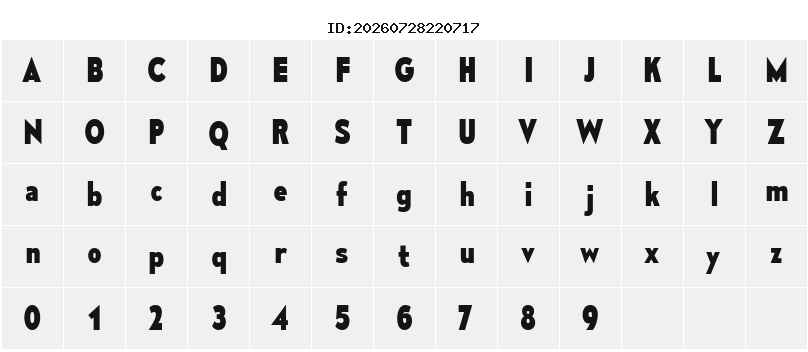
• Font Name: Mesmerize Sc Eb
• Designer: Ray Larabie
• Manufacturer: Ray Larabie
About Mesmerize Sc Eb.ttf
Mesmerize Sc Eb.ttf is a modern, elegant sans-serif font designed for ultimate readability and visual harmony. Perfect for branding, headlines, web design, and print materials.